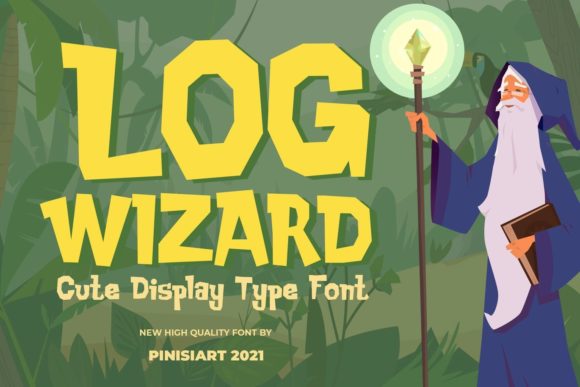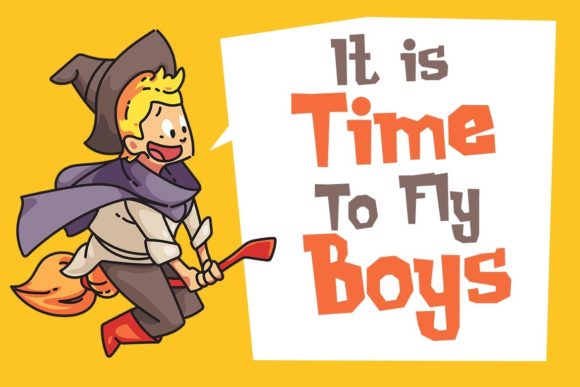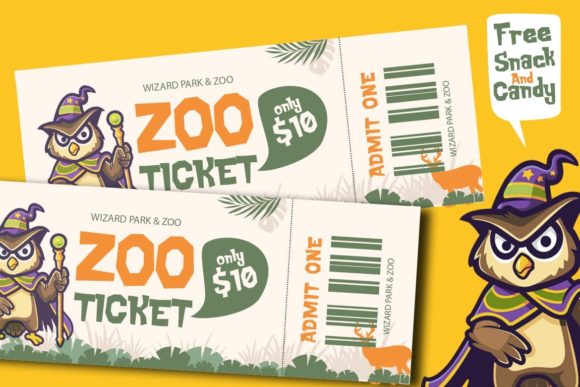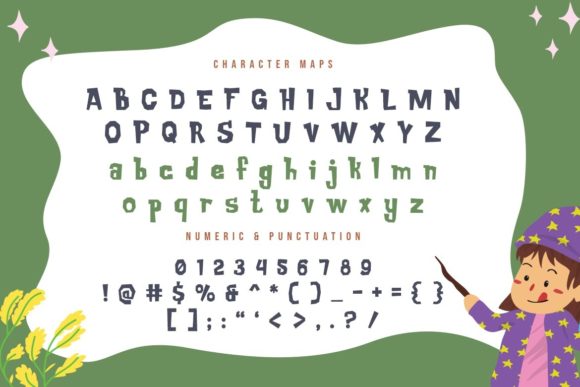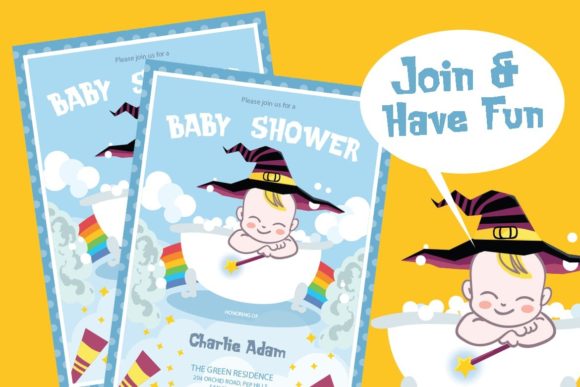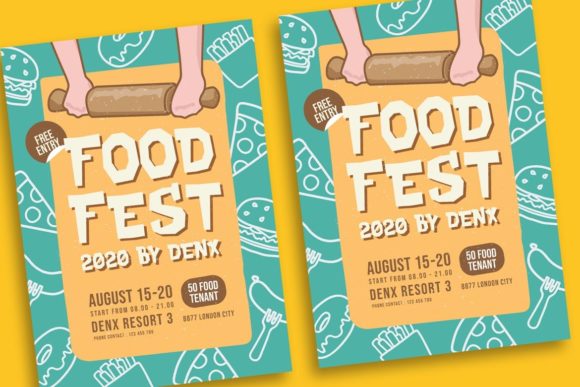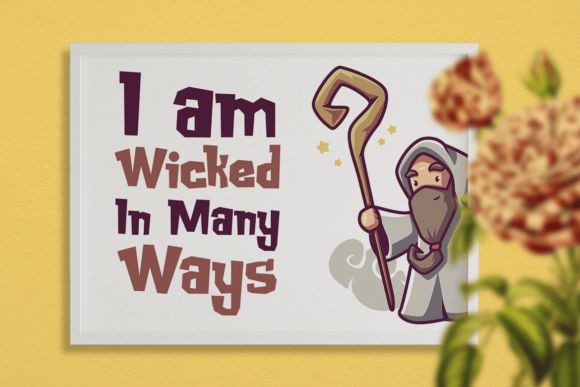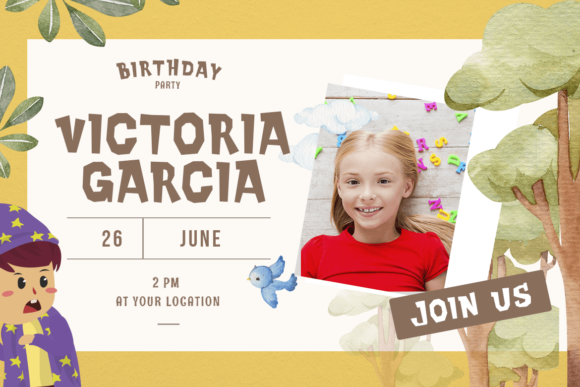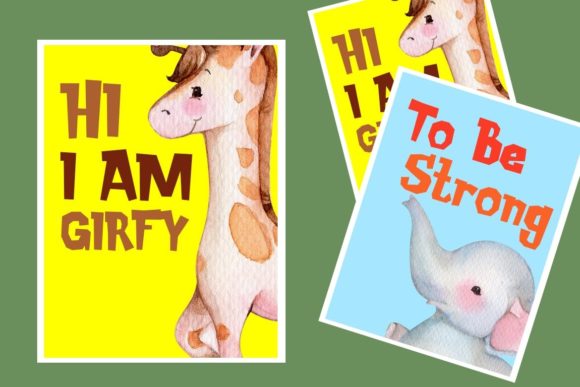
Log Wizard
Log Wizard: A Magical Kids Slab Serif Font
Log Wizard is an enchanting slab serif font designed to bring a touch of magic to children’s designs. This whimsical typeface captures the essence of a world filled with spells and sparkly stars, perfect for creating imaginative and captivating content for young audiences.
Key Features of Log Wizard
• Magical Design: Incorporates enchanting elements that spark imagination.
• Kid-Friendly Style: Crafted specifically to appeal to children and the young at heart.
• Slab Serif Structure: Features the characteristic thick, rectangular serifs with a playful twist.
• Versatile Application: Suitable for a wide range of magical and child-oriented projects.
• Whimsical Characters: Each letter brings a touch of wonder and fantasy to designs.
Ideal Uses for Log Wizard
Log Wizard is particularly well-suited for:
• Magical-themed children’s books
• Online games for kids
• School supplies and stationery
• Posters for children’s events
• Movie titles for family films
• YouTube covers and thumbnails
• Social media content for children’s brands
When incorporating Log Wizard into your designs, consider these tips:
• Use for headlines or short blocks of text to maximize its magical impact
• Experiment with colors that enhance the font’s whimsical nature
• Consider pairing with simpler fonts for body text to maintain readability
• Take advantage of its versatility across various children’s projects
Log Wizard is an excellent choice for designers looking to add a touch of magic to their children’s projects. Its ability to bring enchantment to various designs makes it stand out in the world of kid-friendly typography. Whether you’re working on logo designs for children’s brands, creating layouts for magical storybooks, or developing content for kids’ digital platforms, Log Wizard offers the perfect blend of whimsy and readability.
Furthermore, Log Wizard’s playful style allows it to shine in various contexts. From vintage-inspired designs with a magical twist to cute and friendly layouts, this font can elevate your projects with its enchanting characters. Its whimsical nature works particularly well in designs that require a fun and imaginative mood.
In conclusion, Log Wizard is a font that truly brings the magic of childhood to life. Its ability to work well in both playful, fantasy-themed projects and more educational layouts showcases its versatility. For those looking to add a dash of wonder to their work, Log Wizard can even enhance seasonal children’s creations with its unique, magical style. Let the Wizard of imagination come to your world and transform your designs into something truly spellbinding.